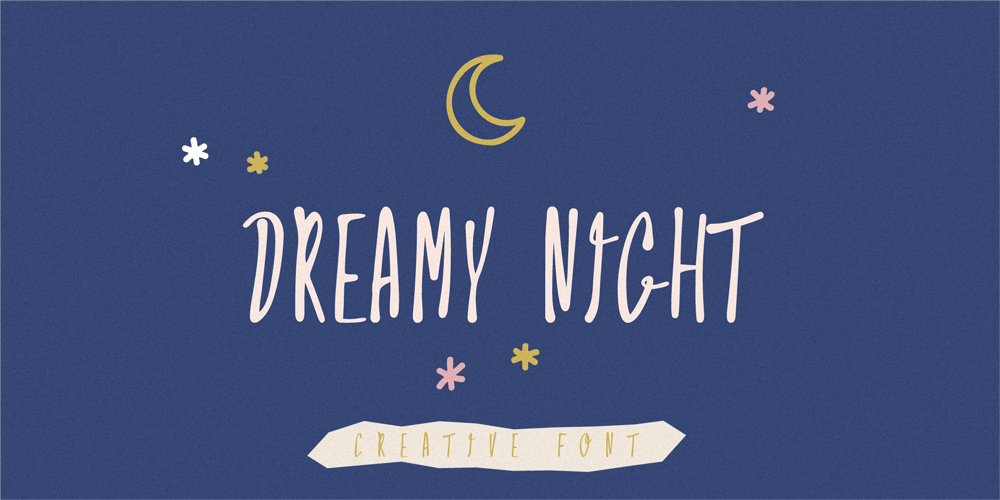
Dreamy Night Font Family was designed by Fidan Aslanova and published by Fidan Fonts. Dreamy Night contains 1 styles and family package options. Dreamy Night is an uppercase decorative font. We’ve tried to create a cute and simple hand-lettered bubbly sans serif font.This font would be perfect for party invitations, baby showers, birthday cards and more.It includes uppercase basic characters, multilingual symbols, numerals and punctuation.Latin-based Language Support.Happy creating!